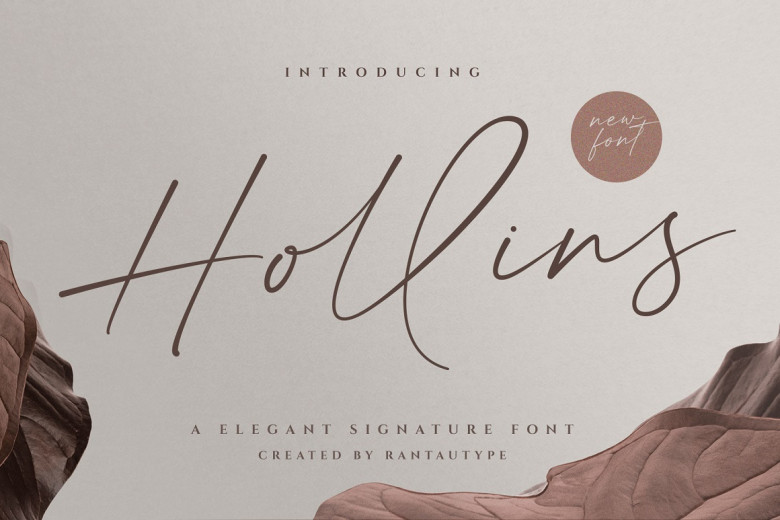
Hollins Font
Hollins is our Handwritten Typeface available for your business! Hollins is a modern handwritten signature style font which we interpret professionally – keeping this font looking elegant, luxurious, premium modern, easy-to-read elegant, attractive and user-friendly.
Hollins is perfect for watermarking on photography wedding events, branding signature logo designs, album covers magazine covers business cards or any variety of design projects where making work look professional is needed! Let Hollins help your projects shine!!
Hollins Signature Script Font